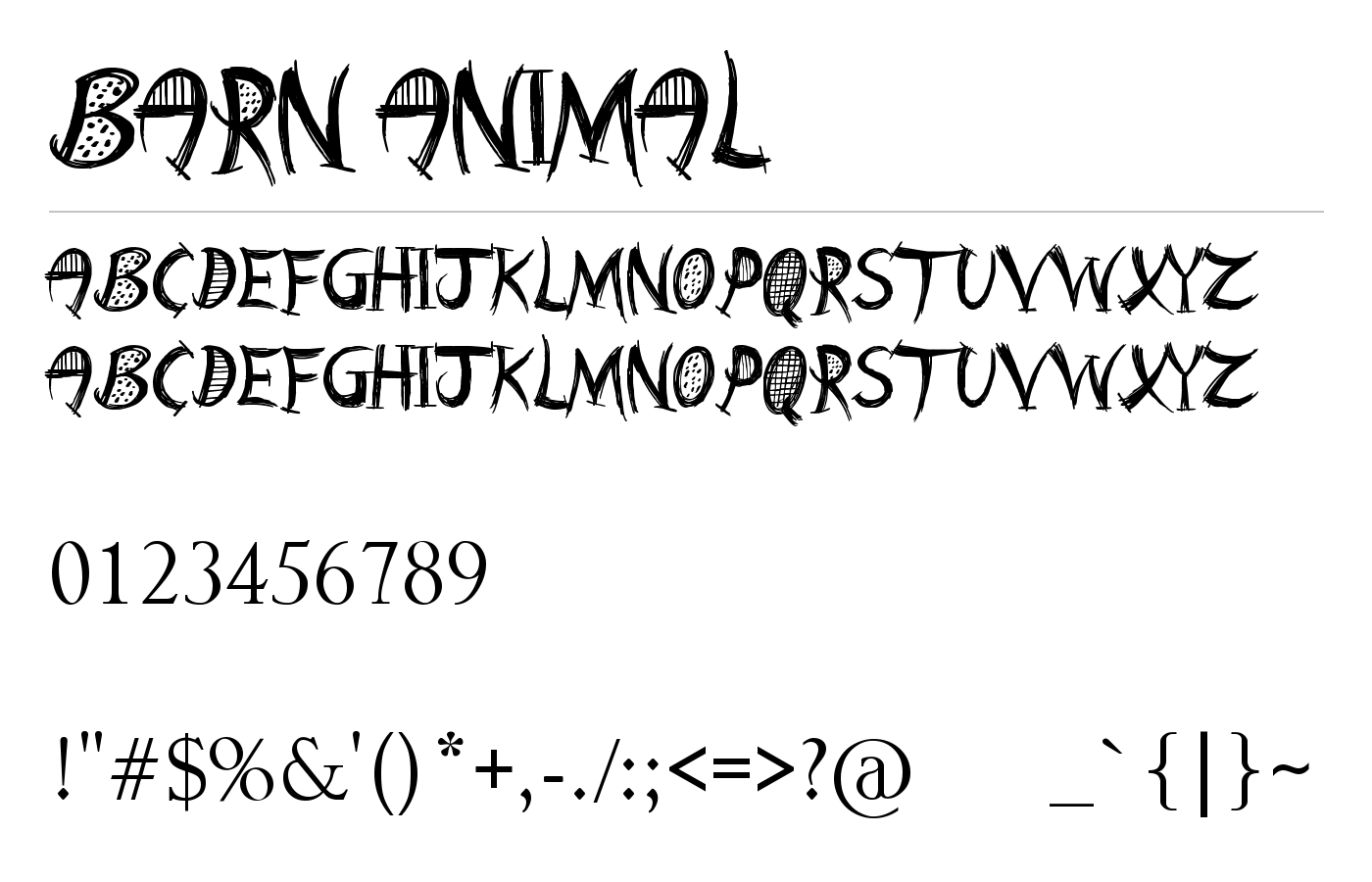
Barn Animal Font is a whimsical and highly decorative display typeface with a hand-drawn, rustic feel inspired by farm animals and nature. Its irregular, textured strokes and playful shapes make it ideal for creative, casual designs that need a quirky, fun personality, perfect for kids’ projects, themed posters, and informal packaging. This font’s unique style shines in large sizes where its lively character can truly stand out.
Barn Animal Font
About Barn Animal Font